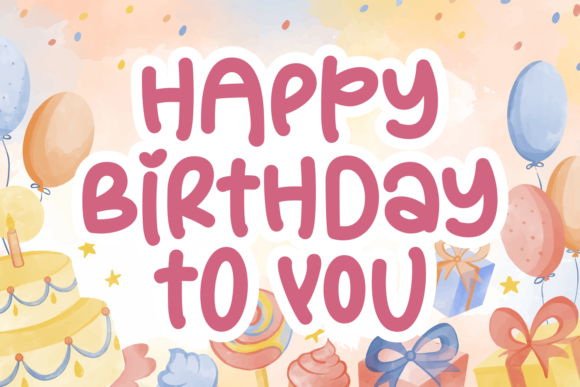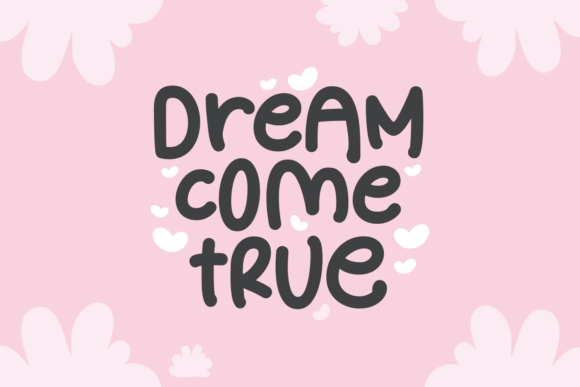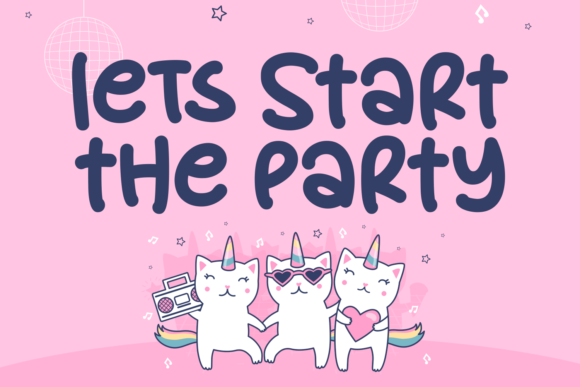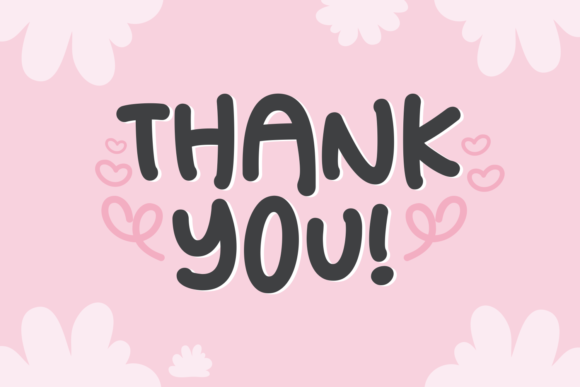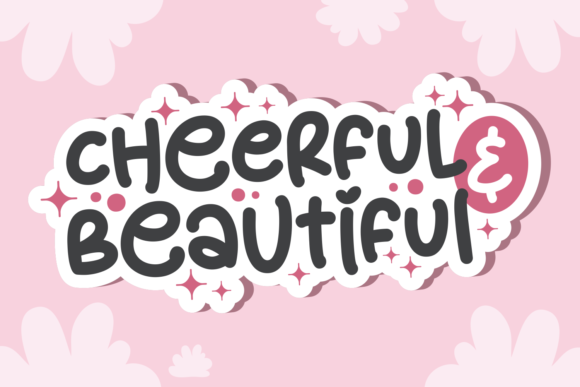
Introducing Cheerful & Beautiful Font: A Whimsical Display Font for Magical Designs
Are you tired of using the same old fonts for your designs? Do you want to add a touch of magic and whimsy to your creations? Look no further than Cheerful & Beautiful Font, an incredibly cool and unique display font that’s sure to immerse your designs into a magical world.
What Makes Cheerful & Beautiful Font So Special?
Cheerful & Beautiful Font is a modern yet whimsical display font that’s perfect for designers and crafters who want to add a touch of personality to their work. Its unique style is a perfect blend of playfulness and sophistication, making it suitable for a wide range of design projects, from branding and advertising to packaging and social media graphics.
Key Features of Cheerful & Beautiful Font
- Unique and Whimsical Style: Cheerful & Beautiful Font has a one-of-a-kind design that’s sure to make your designs stand out from the crowd.
- Modern and Fresh: This font has a modern feel that’s perfect for designers who want to create fresh and contemporary designs.
- Highly Versatile: Cheerful & Beautiful Font can be used for a wide range of design projects, from digital designs to print materials.
- Easily Readable: Despite its whimsical style, Cheerful & Beautiful Font is highly readable, making it perfect for use in body text as well as headlines.
Cheerful & Beautiful Font is a perfect addition to any designer’s or crafter’s toolkit. Whether you’re creating social media graphics, branding materials, or packaging, this font is sure to add a touch of magic to your designs. Its unique style is sure to grab attention and make your designs stand out from the crowd.
Use Cases for Cheerful & Beautiful Font
- Branding and Advertising: Use Cheerful & Beautiful Font to create eye-catching logos, ads, and marketing materials that will grab attention and leave a lasting impression.
- Social Media Graphics: Add a touch of personality to your social media graphics with Cheerful & Beautiful Font. Perfect for creating engaging and shareable content.
- Packaging Design: Use Cheerful & Beautiful Font to create eye-catching packaging that will make your products stand out on store shelves.
- Crafting and DIY Projects: Add a touch of whimsy to your crafting and DIY projects with Cheerful & Beautiful Font. Perfect for creating handmade cards, gift tags, and other paper crafts.
Tips for Getting the Most Out of Cheerful & Beautiful Font
- Experiment with Different Sizes and Colors: Cheerful & Beautiful Font looks great in a variety of sizes and colors. Experiment with different combinations to find the one that works best for your design.
- Pair with Other Fonts: Cheerful & Beautiful Font pairs well with a variety of other fonts. Try pairing it with a clean sans-serif font for a modern look, or with a script font for a more whimsical feel.
- Use in Combination with Other Design Elements: Cheerful & Beautiful Font is a great addition to any design, but it’s even more effective when used in combination with other design elements, such as illustrations or graphics.